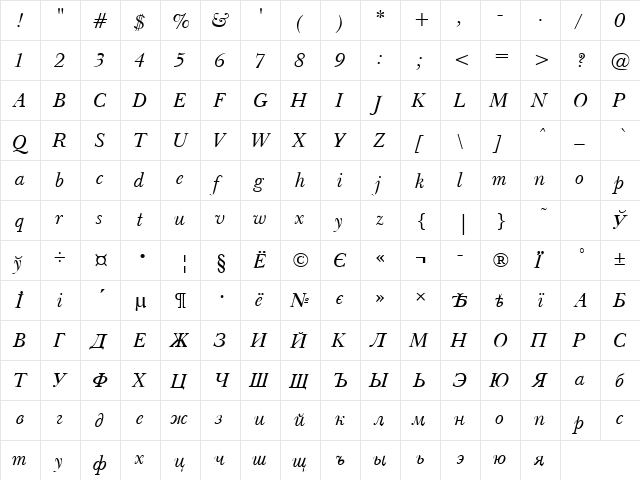
Baskerville Light Italic Font Preview
Design Context for Baskerville Typeface
Baskerville offers clean, dependable letterforms without strong stylistic allegiance, making it a practical choice for designers who need flexibility. The slanted form adds forward momentum and visual energy. Its slender proportions lend an understated elegance to any composition.
Pro Tip: Try Baskerville for annotation and caption copy alongside an upright companion — the contrast in angle creates a dynamic but ordered typographic system.